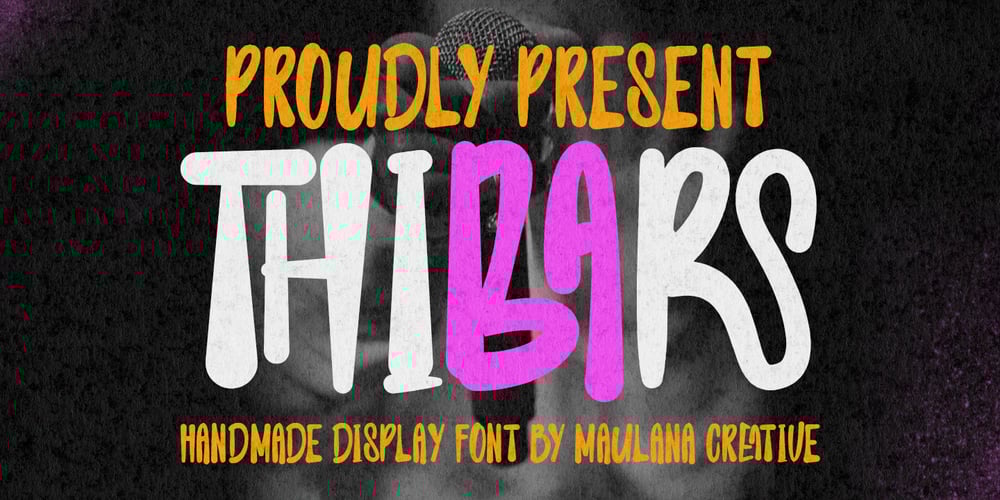
MC Thibars Font Family was designed by Gilang Maulana and published by Maulana Creative. MC Thibars contains 1 styles and family package options. Thibars handmade display font, fun character with a stylistic and ligatures. To give you an extra creative work. Thibars handmade display font support multilingual language.Many Thanks